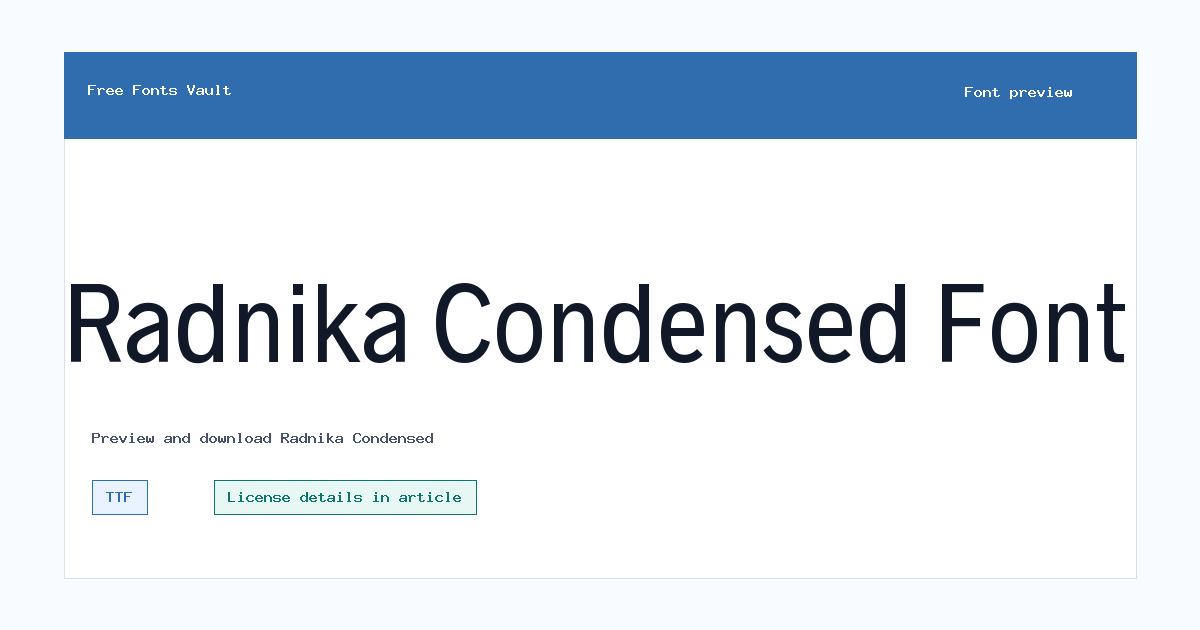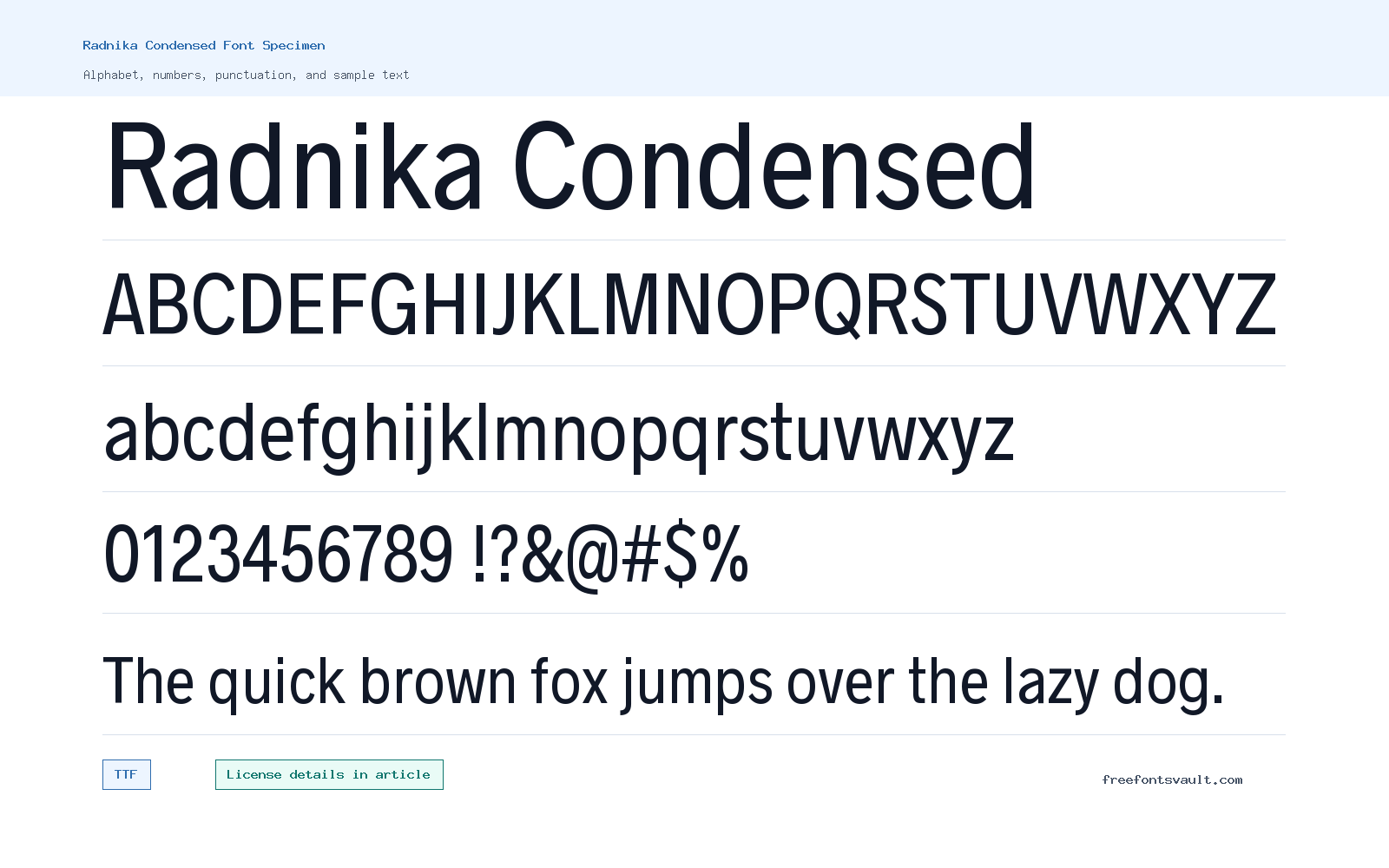
Radnika Condensed
- Designer Alfredo Marco Pradil
- Foundry Alfredo Marco Pradil
Radnika Condensed font.
Radnika Condensed is a narrow regular-weight TTF font credited to Alfredo Marco Pradil. It is useful when a layout needs cleaner typography in less horizontal space, especially for headings, labels, and compact display text.
About Radnika Condensed
The condensed width is the main practical value here. Radnika Condensed lets words occupy less line length than a standard-width face, which can help with posters, menu text, packaging labels, sidebars, and interface layouts. Because the listed style is regular 400 weight, it can feel more restrained than a heavy condensed headline font while still saving space.
Use the preview to test the actual words from your design. Condensed fonts can look efficient and polished in short phrases, but they may become harder to read when pushed into long paragraphs or very small sizes. Check mixed-case text, numerals, punctuation, and tight letter pairs. If the wording feels cramped, add letter spacing or use it only for headings.
- Normal 400 weight for compact but not overly heavy text.
- Narrow width suited to headings, labels, menus, and layout accents.
- Headlines, banners, posters, and title treatments with limited width.
- Labels, navigation items, packaging mockups, and compact UI accents.
- Editorial sidebars, cards, and short captions after readability testing.
- Brand direction studies that need a condensed sans serif feel.
- Layouts where standard-width fonts make text wrap too early.
Use Radnika Condensed where narrow text solves a layout problem. Test it at final size, avoid long dense paragraphs, and add a little spacing if words feel too tight.
What is Radnika Condensed best for?
It is best for compact headings, labels, menu text, poster lines, packaging mockups, and short display settings.
Who designed Radnika Condensed?
The font is credited to Alfredo Marco Pradil.
Is it good for body text?
Use it carefully for long copy. Condensed fonts can reduce readability in paragraphs, so test the final size before choosing it for body text.